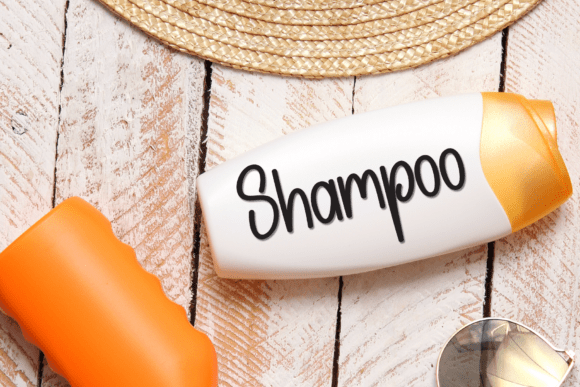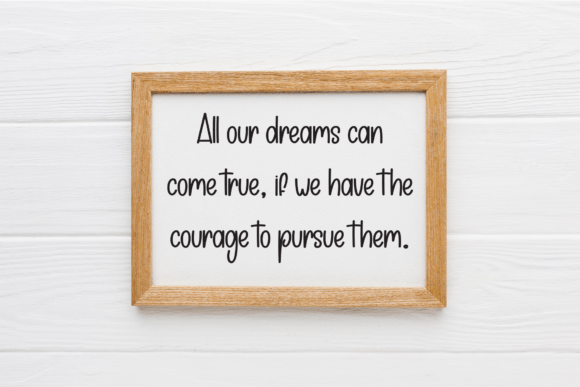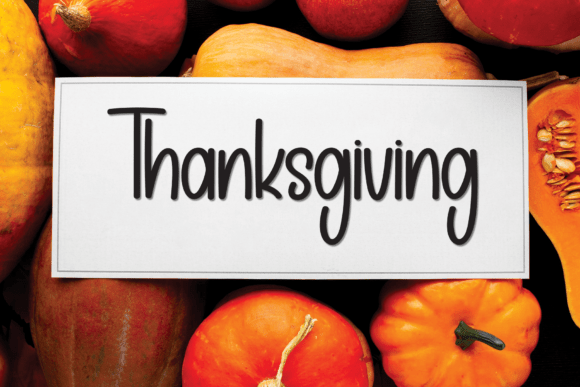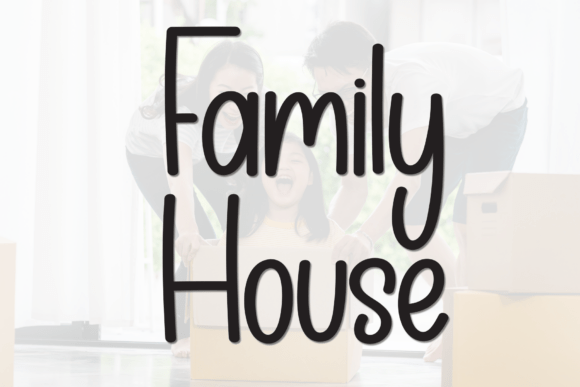
Introduction to Family House Font
“Family House” is a sans-serif handwritten display style font.
It has a friendly and approachable appearance, leaning toward casual and playful design The weight is medium to bold, with consistent strokes that give the letters presence and readability.